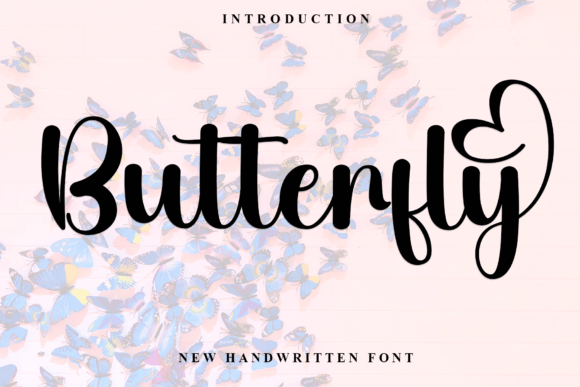
The Magic of Butterfly Font: Elevating Your Designs with Elegance
I’ll never forget the time I was working on a project for a client who wanted a elegant and sophisticated look. I had spent hours browsing through font libraries, but nothing seemed quite right. That was until I stumbled upon the Butterfly font. Its delicate, flowing script immediately caught my eye, and I knew I had found the perfect fit. In this article, I’ll share with you why I’m obsessed with this beautiful font and how you can make the most of it in your designs.
A Personal Review: What I Love About Butterfly Font
So, what makes Butterfly font so special? Here are a few things that I absolutely love:
• ✨ Delicate and elegant: The font has a beautiful, flowing script that adds a touch of sophistication to any design.
• ✅ Well-balanced characters: Each character is carefully crafted to ensure that the font looks great in any context.
While I absolutely love Butterfly font, there are a few small quirks to be aware of:
• 🤔 Limited use in body text: While the font is beautiful, it’s not ideal for long blocks of body text. It’s best used for headings, titles, or short paragraphs.
Butterfly font was designed by a talented typographer who wanted to create a font that would evoke the feeling of elegance and sophistication. The designer was inspired by the beauty of nature and the intricate details of butterfly wings. The result is a font that is both delicate and powerful.
Is Butterfly font suitable for body text? While Butterfly font is beautiful, it’s not ideal for long blocks of body text. It’s best used for headings, titles, or short paragraphs.